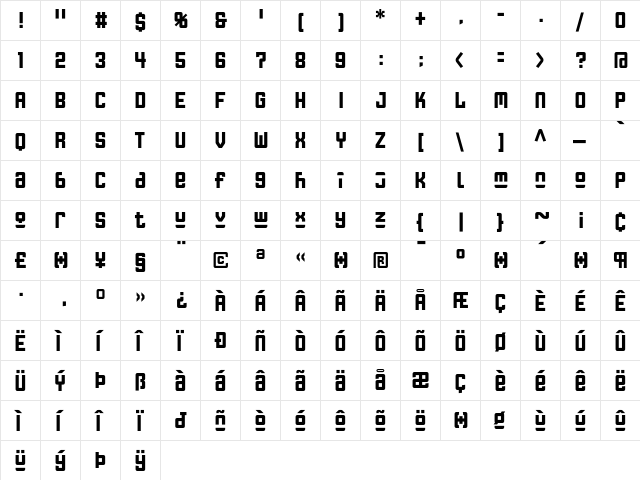
FFGothic OneOneCondensed
Design Context for FFGothic Typeface
FFGothic has a distinctly futuristic character, with geometric precision and clean angles that feel at home in technology, gaming, and sci-fi contexts. The condensed width makes it efficient for tight spaces without sacrificing legibility.